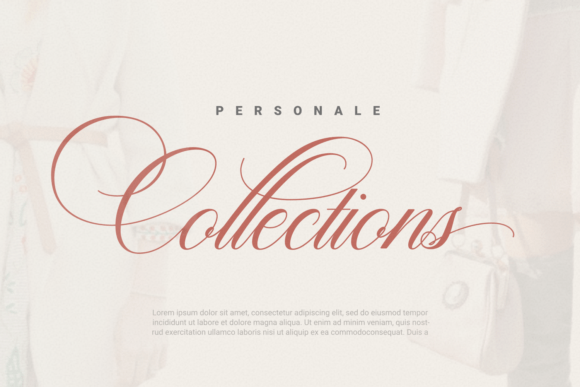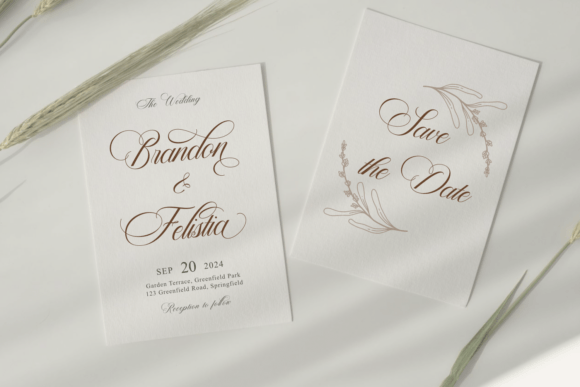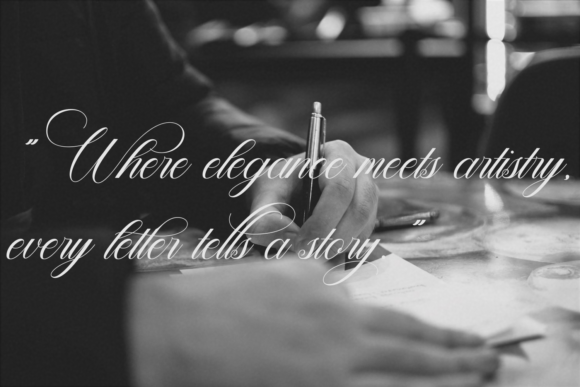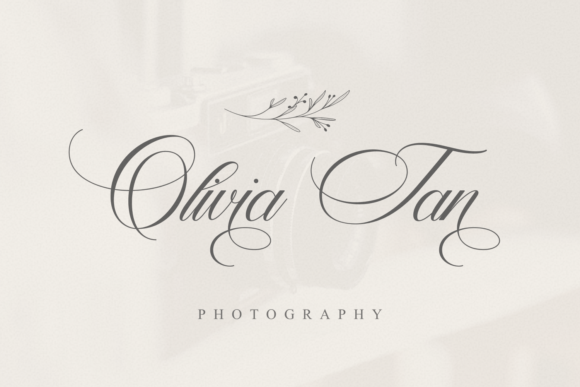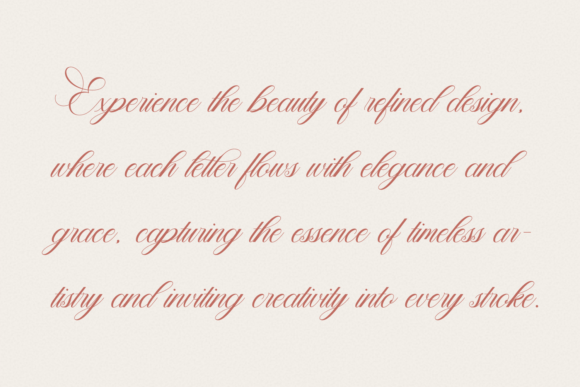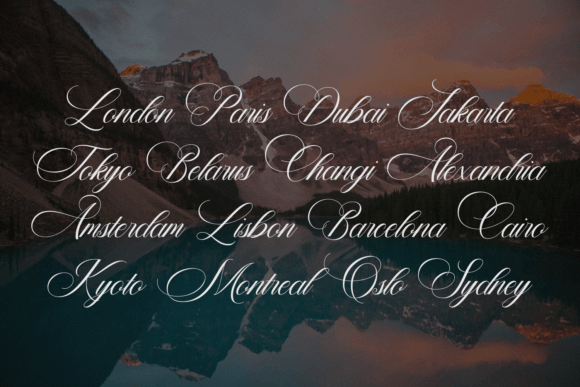
Introduction to Matterane Font
Introducing Matterane, a sophisticated calligraphy font that blends classic copperplate charm with modern elegance.
With smooth, luxurious connections and clean, graceful strokes, Matterane is versatile for formal uses like invitations, logos, and packaging Its refined alternates and timeless style add effortless glamour and readability, perfect for any high-end design project.